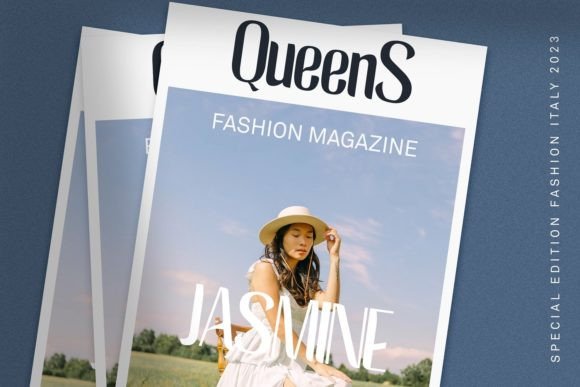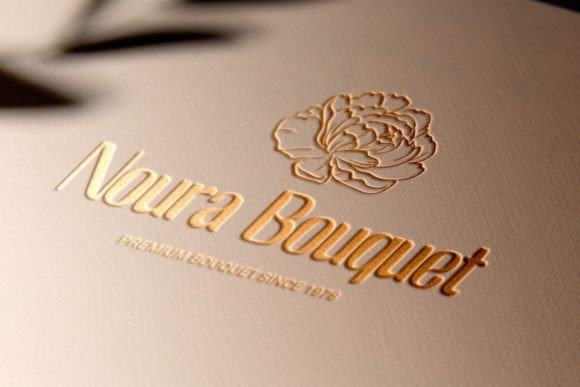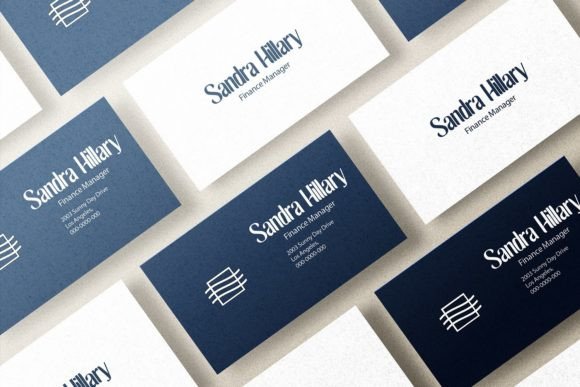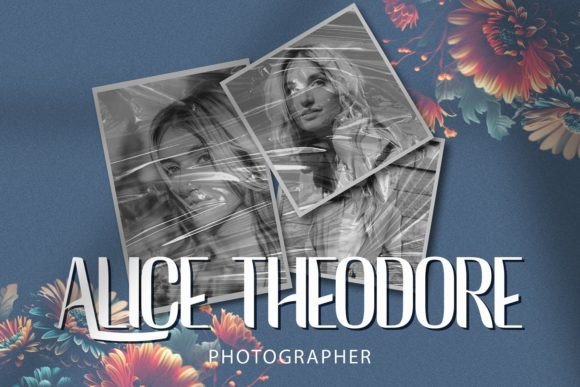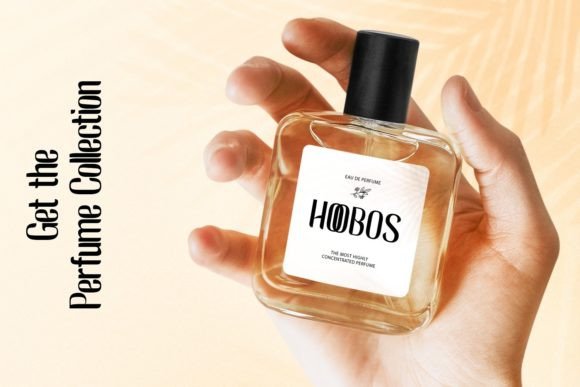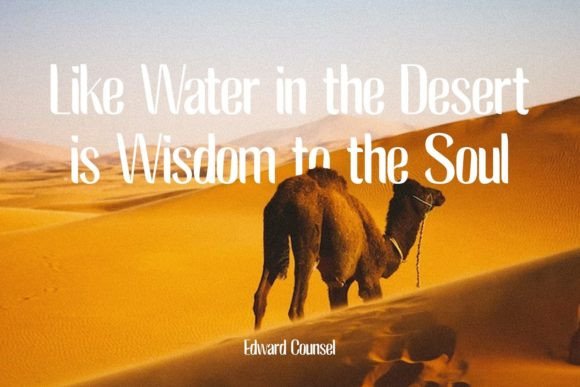
Introducing BAGREK DISPLAY – The Ultimate Sans Serif Font for Creative Expression
Are you tired of using the same old fonts for your creative projects? Look no further! BAGREK DISPLAY is here to revolutionize the way you express yourself through typography. This sweet, playful display sans serif font is designed to add an elegant touch to your designs, making them stand out from the crowd.
The Charm of BAGREK DISPLAY
BAGREK DISPLAY is more than just a font – it’s an experience. Its dynamic charm is infectious, making you fall in love with its unique style. This fancy display font is perfect for crafters, designers, and anyone looking to add a touch of sophistication to their creative projects.
What Makes BAGREK DISPLAY Special?
- PUA Encoded: BAGREK DISPLAY is PUA encoded, which means you can access all the amazing glyphs and ligatures with ease. This feature makes it easy to use and customize the font to suit your needs.
- Sans Serif Elegance: The font’s sans serif design gives it a clean and modern look, perfect for a wide range of creative projects.
- Playful yet Elegant: BAGREK DISPLAY strikes the perfect balance between playfulness and elegance, making it suitable for various design applications.
- Signs and Posters: Use BAGREK DISPLAY to create eye-catching signs and posters that grab attention.
- Logos and Branding: Add a touch of elegance to your logos and branding materials with this sophisticated font.
- Social Media Graphics: Make your social media graphics stand out with BAGREK DISPLAY’s unique style.
- Crafting and Scrapbooking: Use BAGREK DISPLAY to add a personal touch to your crafting and scrapbooking projects.
Why Choose BAGREK DISPLAY?
With so many fonts available, why choose BAGREK DISPLAY? Here are just a few reasons:
- Unique Style: BAGREK DISPLAY offers a unique style that’s hard to find in other fonts.
- Ease of Use: The font’s PUA encoding makes it easy to use and customize.
- Versatility: BAGREK DISPLAY is suitable for a wide range of creative projects, from signs and posters to logos and social media graphics.